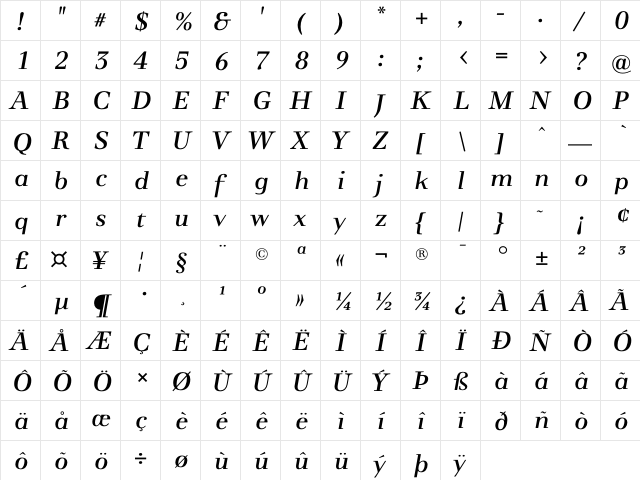
Dedica DaMa Italic
Design Context for Dedica DaMa Typeface
Dedica DaMa is a composed and adaptable typeface that performs quietly and consistently across a wide range of design contexts. The dynamic lean of this cut emphasises speed and emphasis in any layout.
Pro Tip: Try Dedica DaMa for annotation and caption copy alongside an upright companion — the contrast in angle creates a dynamic but ordered typographic system.